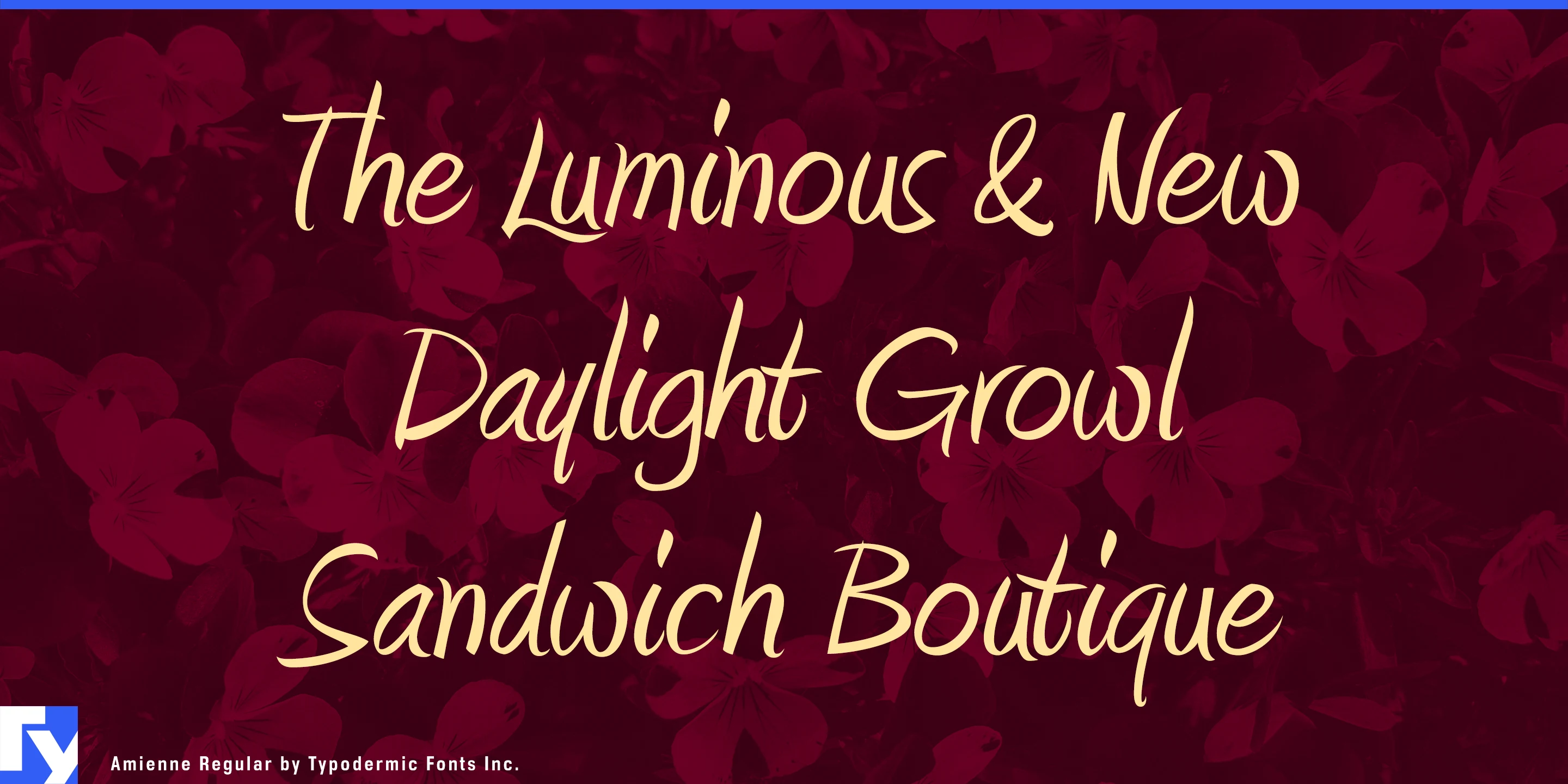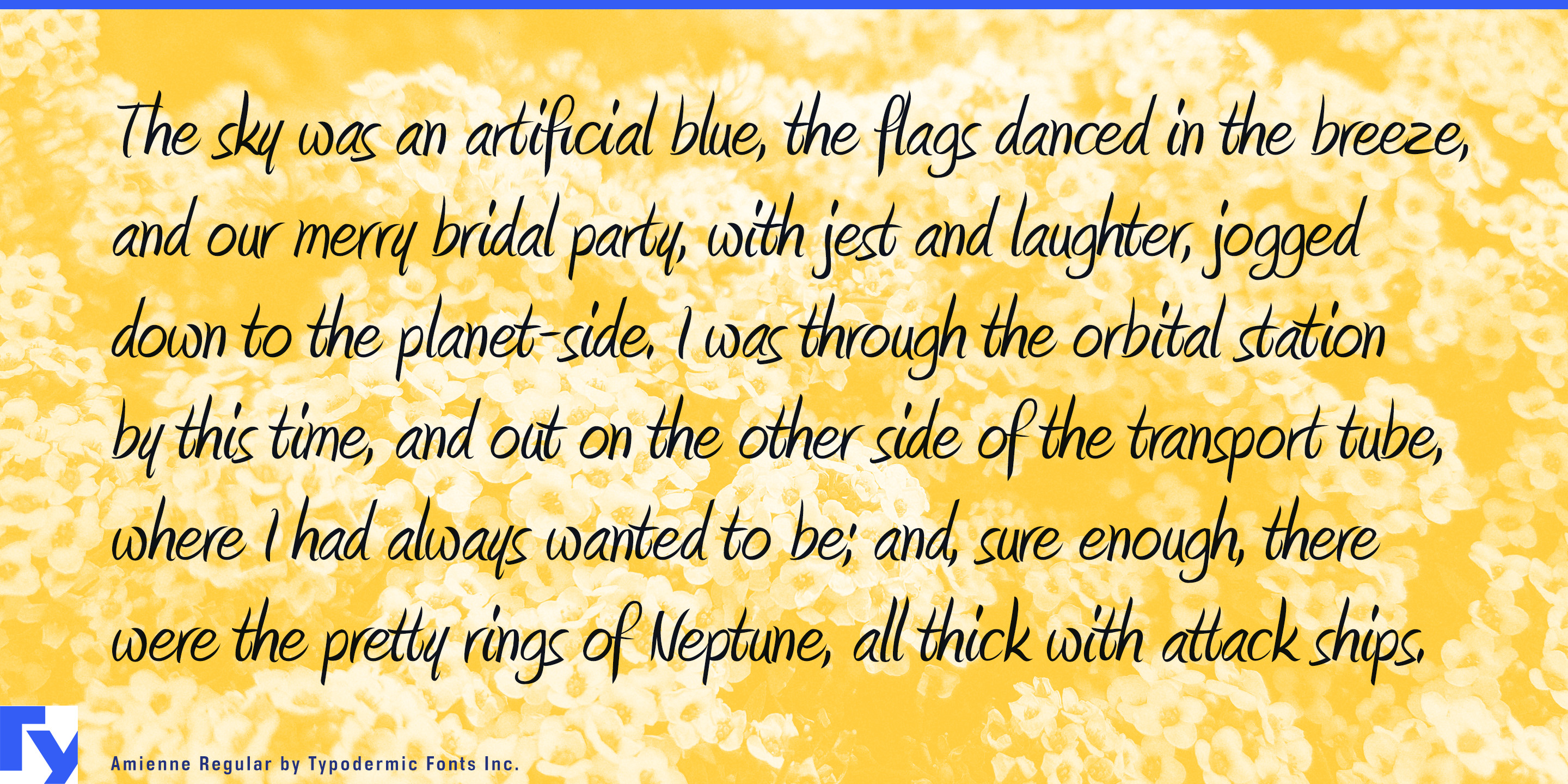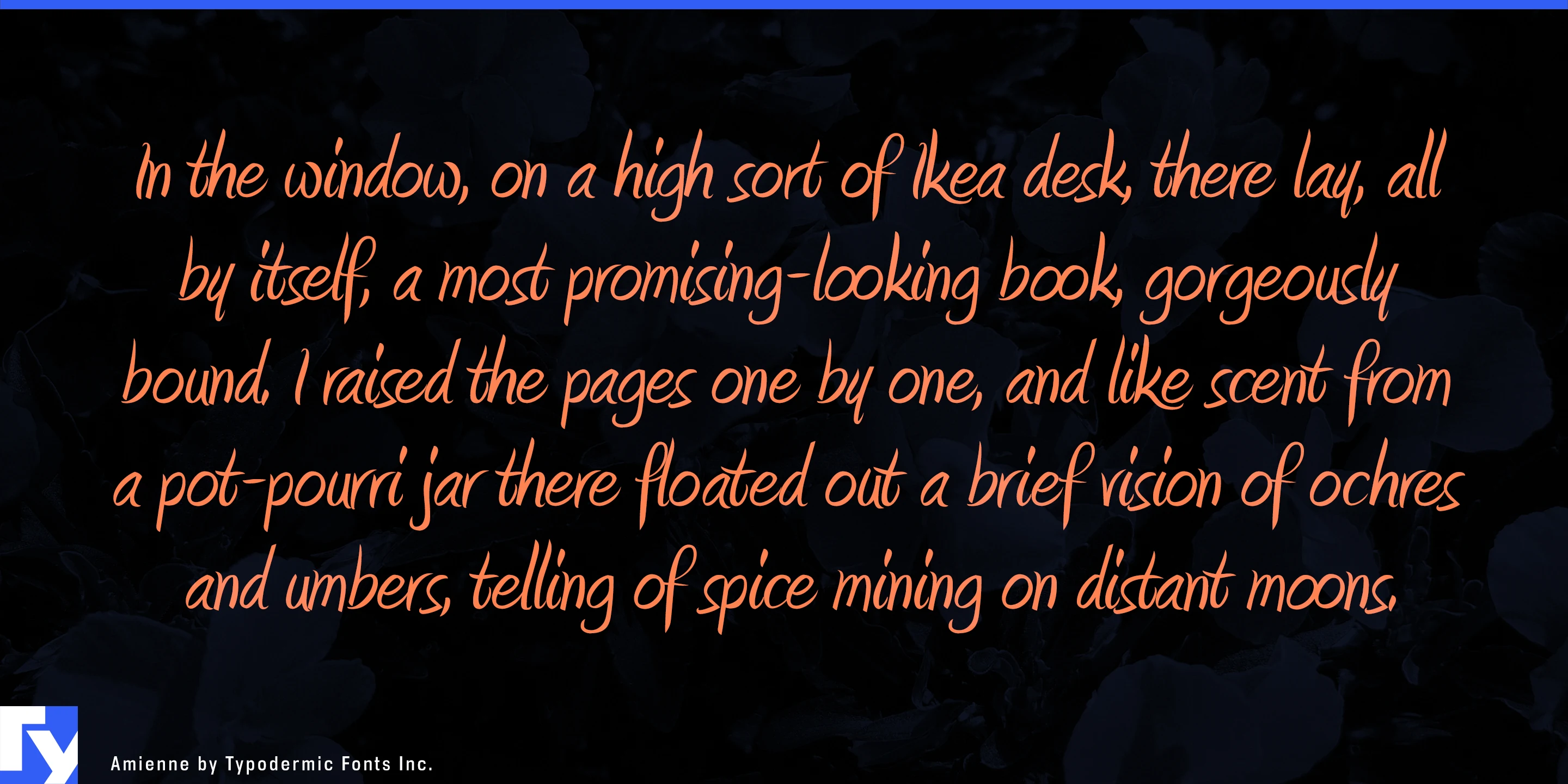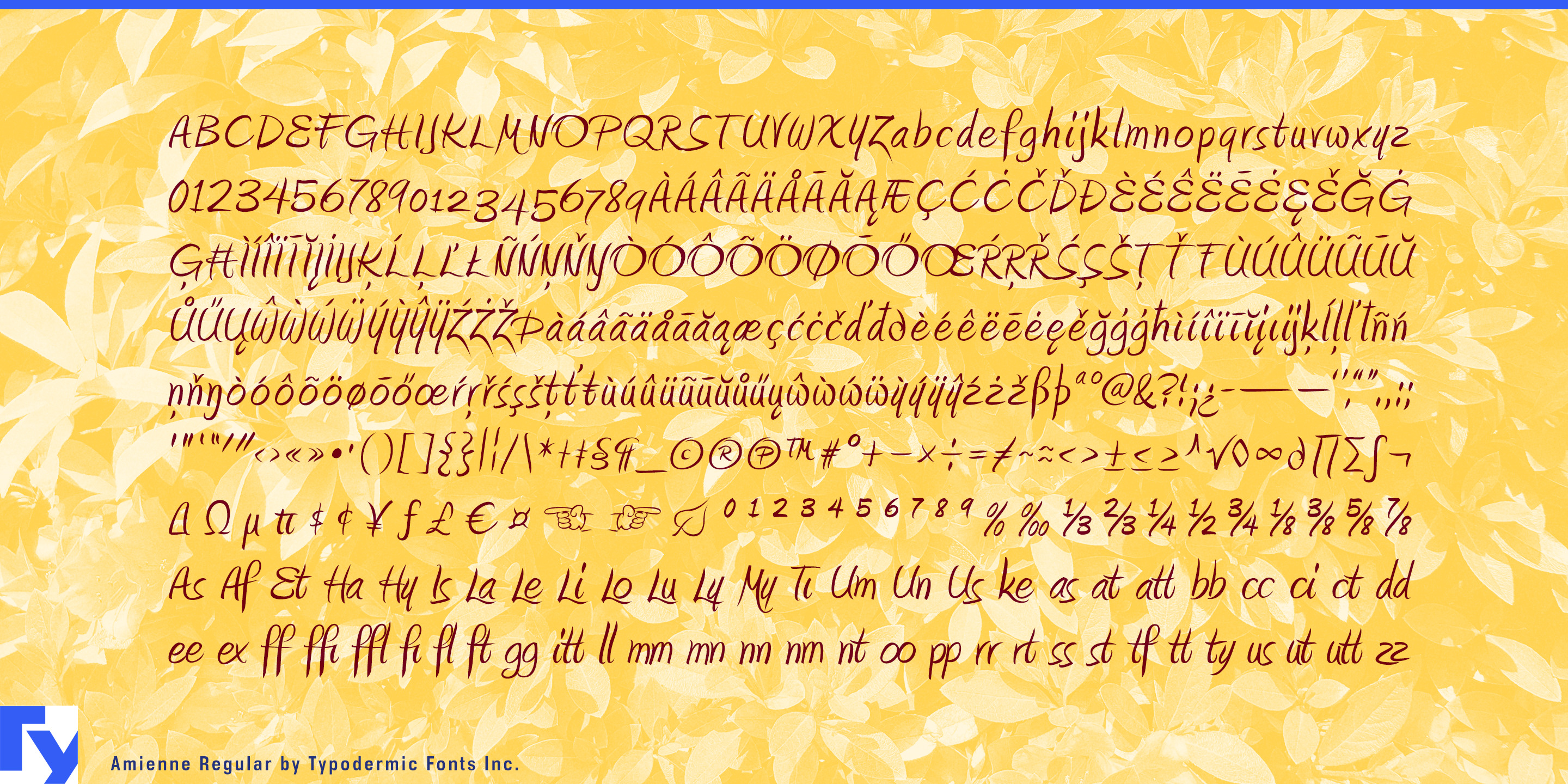
Amienne
Sometimes a polished brand system needs handwriting, but contemporary script can look too carefully performed. Signature lettering suggests endorsement, formal calligraphy can feel ceremonial, and highly engineered brush scripts often bring more flourish than the message needs. Amienne takes a looser route. Its painted forms retain the unevenness of real brushwork, giving short phrases and names a casual handwritten quality without turning them into decorative showpieces.
That makes Amienne especially useful as the informal second voice in food and hospitality. Restaurant groups, hotel dining programmes, chef-led casual concepts, bakery chains, culinary retailers, and premium prepared-food brands can keep their main identity disciplined while Amienne handles seasonal menu titles, dish names, chef notes, specials, house-product names, takeaway graphics, and short campaign phrases.
Packaged food offers the same role across larger product systems. Sauces, frozen meals, bakery products, preserves, confectionery, meal kits, coffee, tea, and refrigerated foods often need a distinction between the permanent master brand and individual flavors, recipes, or collections. Amienne can carry those names while a clean serif or sans handles product architecture, nutrition information, and regulatory copy.
Recipe platforms and cooking media extend that advantage into digital products. Grocery chains, meal-kit services, appliance companies, food publishers, cooking apps, and streaming culinary content can use Amienne for recipe titles, chef tips, serving suggestions, chapter graphics, and handwritten-style annotations while the surrounding interface remains structured.
Accessible wellness and home fragrance provide another natural setting. Bath products, body care, candles, diffusers, sleep products, spa programmes, and botanical home ranges can use Amienne for scent names, treatment names, product variants, gift-set titles, seasonal collections, and short benefit phrases without adopting the ornate language of prestige cosmetics.
Amienne also works well for collaborations and limited editions, supplying a chef name, collection title, flavor series, seasonal release, or short endorsement within an established identity. Its painted irregularity gives food, hospitality, wellness, and lifestyle systems a casual human layer that feels handwritten without looking overly polished or performative.